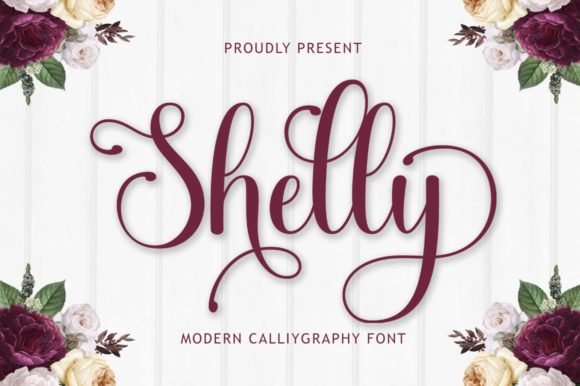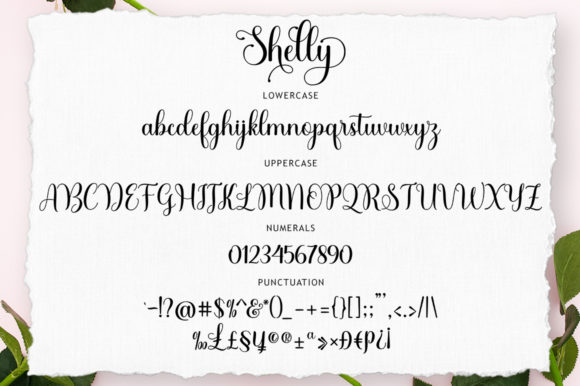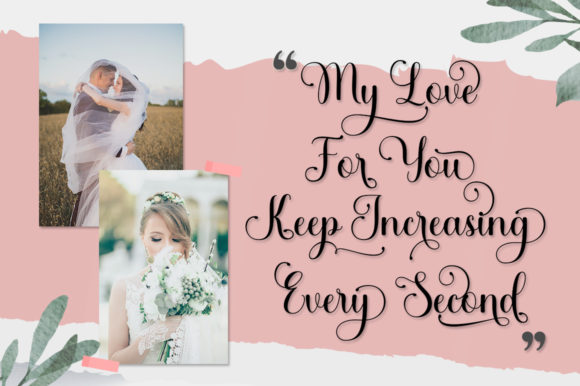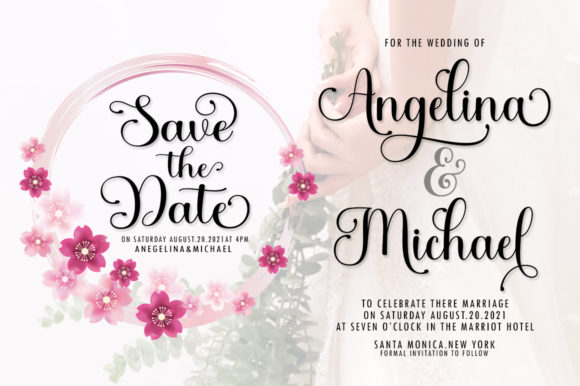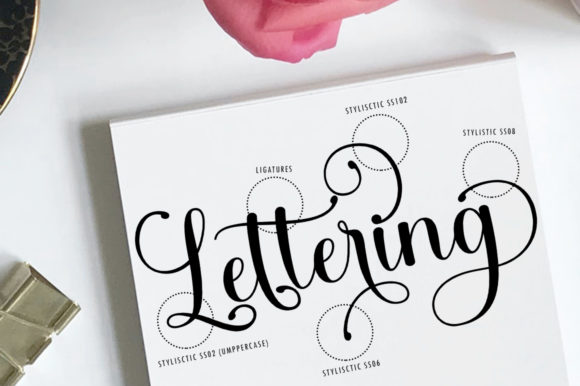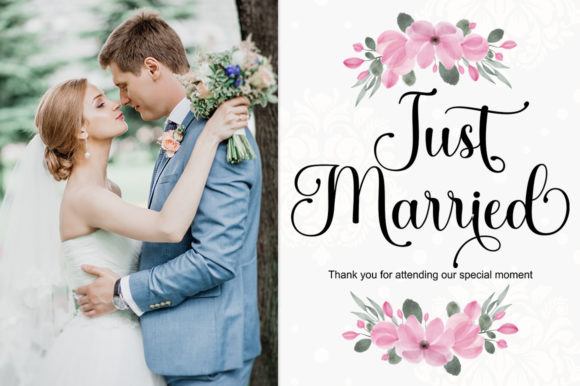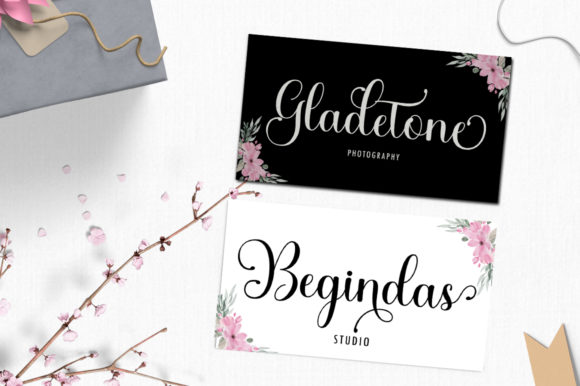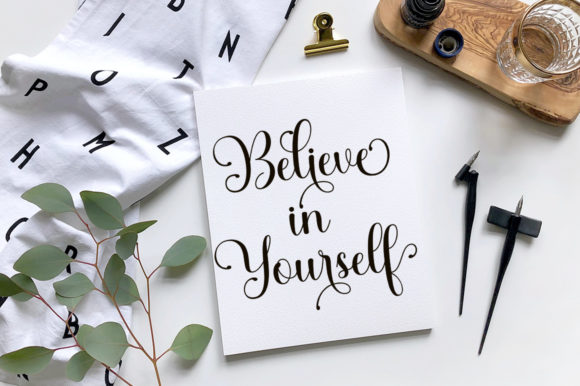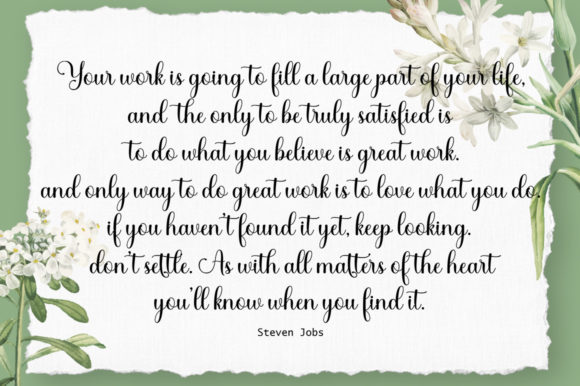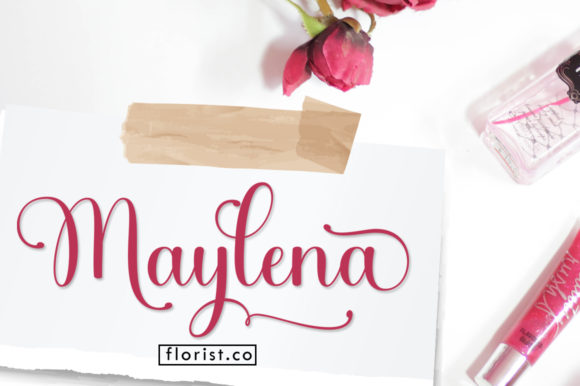
Shelly Font
About Shelly Font
Shelly is an exquisite script font that combines elegance with a contemporary flair. Inspired by timeless classic calligraphy, Shelly brings a sense of sophistication and beauty to your projects. With its balanced and varied letterforms, this font is designed to enhance the overall aesthetic and impact of your designs.
The medium weight of Shelly strikes the perfect balance between being not too thin and not too thick, ensuring readability and versatility across various design applications. Whether you’re creating logos, wedding invitations, headings, t-shirts, letterheads, signage, labels, news, posters, badges, or any other design project, Shelly is well-suited to add a touch of elegance and style.
One of the notable features of Shelly is its PUA (Private Use Area) encoding. This means that all the glyphs and swashes are easily accessible, allowing you to effortlessly access and incorporate them into your designs. The extensive range of alternate characters, ligatures, and swashes gives you the creative freedom to customize and personalize your typographic compositions.
Shelly’s contemporary atmosphere and impeccable form make it a versatile choice for a wide range of projects. Its elegant and flowing letterforms lend a sense of sophistication and charm to your designs. Whether you’re aiming for a classic and timeless look or a modern and refined aesthetic, Shelly adapts seamlessly to your creative vision.
In summary, Shelly is an elegant script font with a contemporary atmosphere and impeccable form. Its balanced and varied letterforms enhance the beauty of your projects, while the PUA encoding allows easy access to all the glyphs and swashes. With its versatile style, Shelly is a perfect choice for creating logos, wedding invitations, headings, and various other design projects that require a touch of elegance and sophistication.